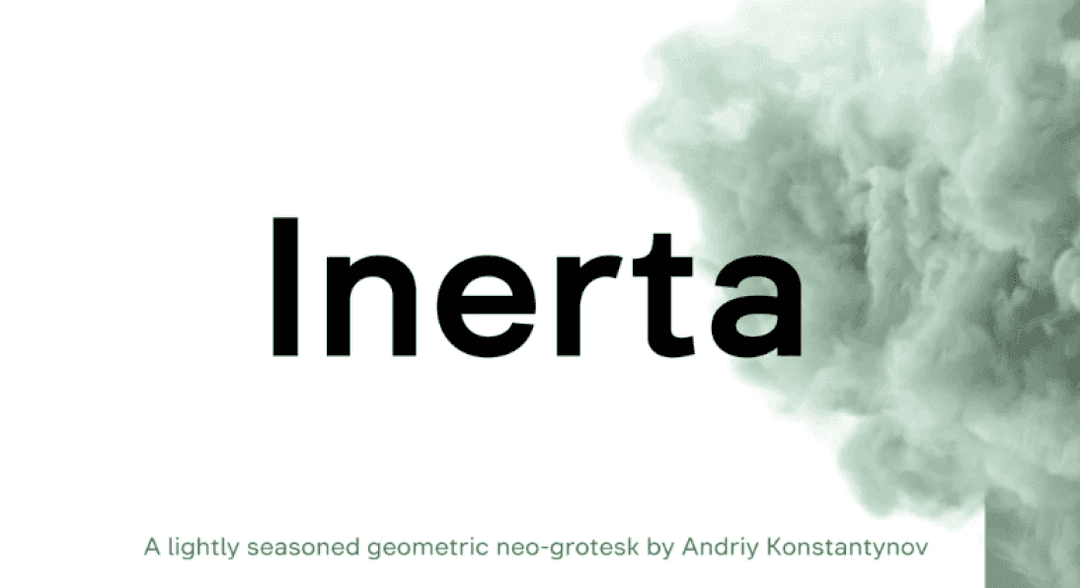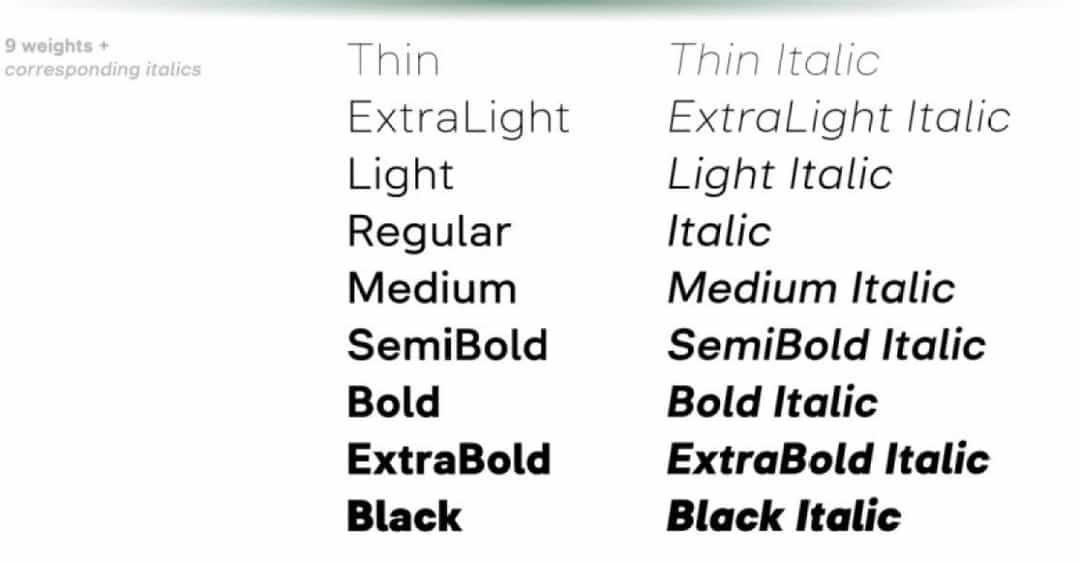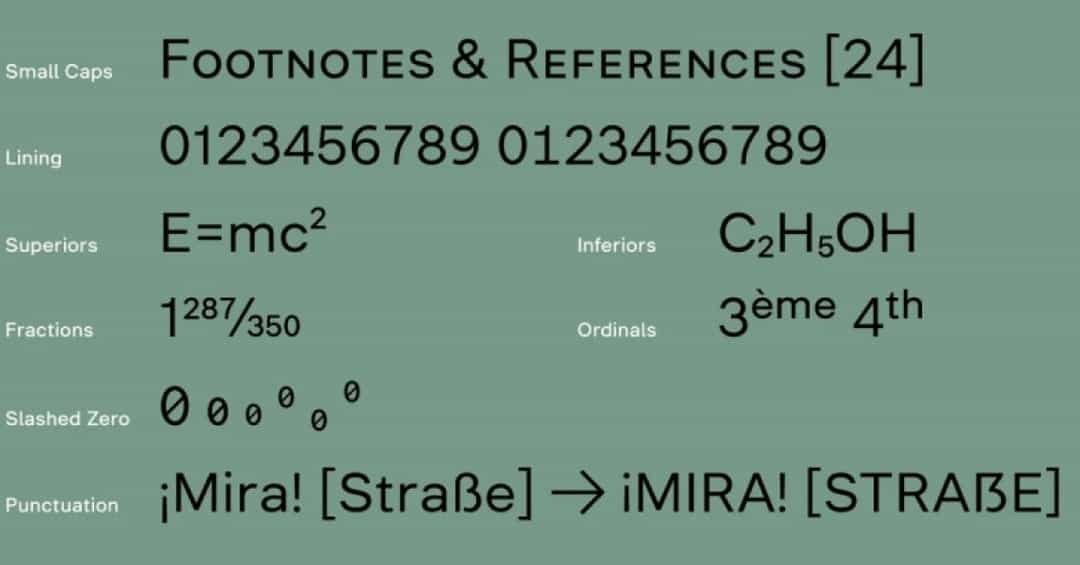
We are pleased to introduce Inerta Font, our latest font. Inerta Font offers an attractive combination of geometric sans serif and Neo-grotesk that makes a stylish yet neutral impression, suitable for use across UX/UI applications as well as at small sizes fonts.